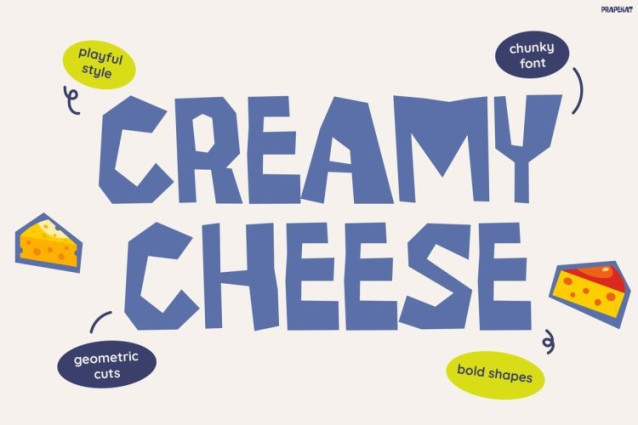
Prapekat Font
Prapekat Font is a bold and playful display font designed to make every project feel more lively, colorful, and full of personality. Inspired by cartoon graphics, retro snack packaging, dairy branding, and cheerful kids visuals, this font instantly creates a fun and attention-grabbing appearance. Moreover, PRAPEKAT combines thick chunky letterforms with quirky handcrafted details, so every word feels expressive, dynamic, and visually exciting. Unlike ordinary kids fonts, PRAPEKAT delivers a unique balance between playful aesthetics and strong readability. As a result, it works perfectly for branding, packaging, posters, advertising, social media graphics, and product promotions.
Kids Font PRAPEKAT blends cartoon-inspired creativity with modern branding functionality. Furthermore, the oversized playful characters help headlines look bold, memorable, and impossible to ignore. Thanks to its irregular handcrafted style, this font creates a warm and energetic atmosphere that instantly attracts attention from both kids and family audiences. At the same time, the balanced composition keeps every word easy to read across digital and print designs. Besides that, the soft rounded edges and chunky shapes help typography feel more friendly and approachable. Additionally, PRAPEKAT includes uppercase, lowercase, numbers, punctuation, and multilingual support, so designers can create flexible and creative typography layouts effortlessly. Consequently, this font becomes highly versatile for many design needs.